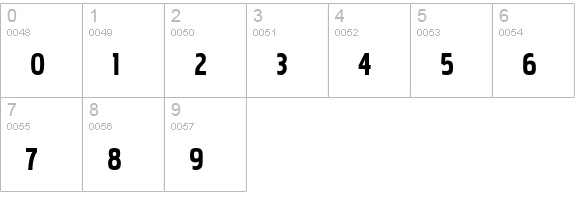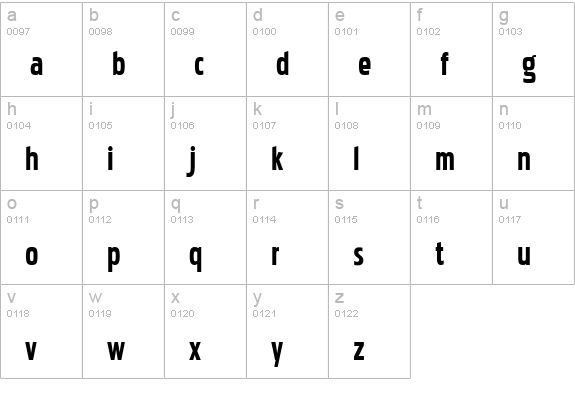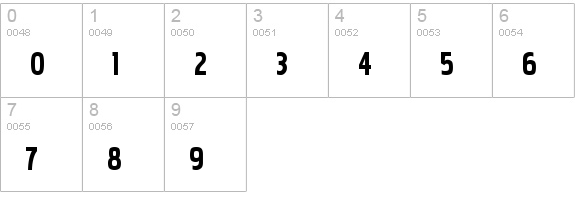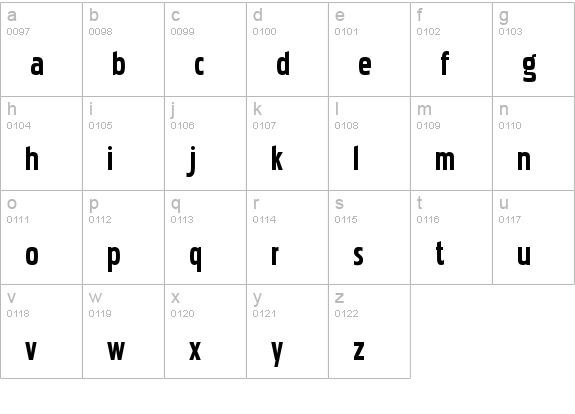
Pakenham Font Details
Pakenham is a beautifully crafted font that exudes elegance and sophistication. With its clean lines and graceful curves, this font is perfect for adding a touch of refinement to any design project. Whether you're creating wedding invitations, branding materials, or simply want to elevate your typography game, Pakenham is the ideal choice. What sets Pakenham apart is not just its stunning aesthetics, but also the fact that it is available for free. That's right, you don't have to break the bank to access this premium-quality font. Pakenham can be freely downloaded at FontsMarket.com, a trusted source for high-quality fonts. Designed with versatility in mind, Pakenham can adapt to various design styles and themes. Its timeless appeal makes it suitable for both contemporary and vintage-inspired designs. The font's legibility ensures that your message will be delivered with clarity and impact. Pakenham offers a wide range of character variations, including uppercase and lowercase letters, numerals, punctuation marks, and special characters. This extensive character set allows for endless design possibilities and flexibility. With Pakenham, you can effortlessly create visually stunning and professional-looking designs. So why wait? Head over to FontsMarket.com and download Pakenham for free today. Unleash your creativity and let this font transform your designs into works of art.